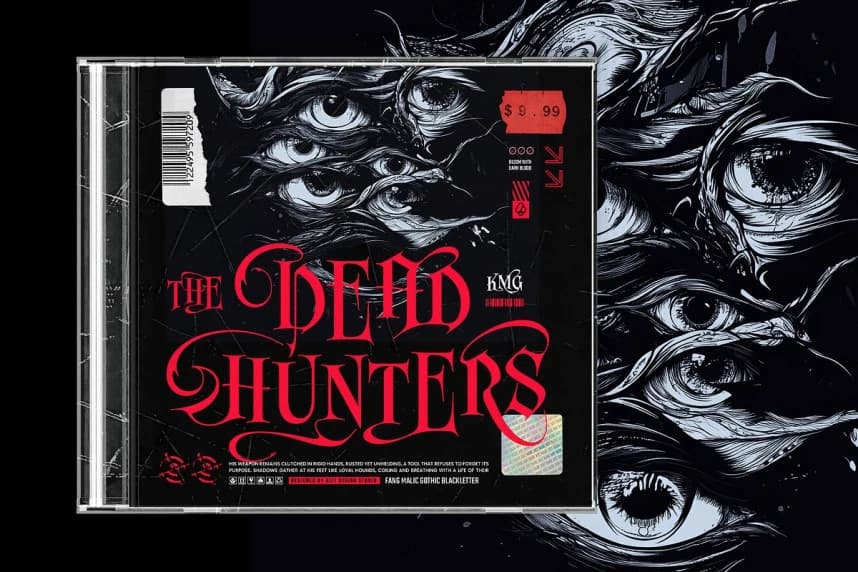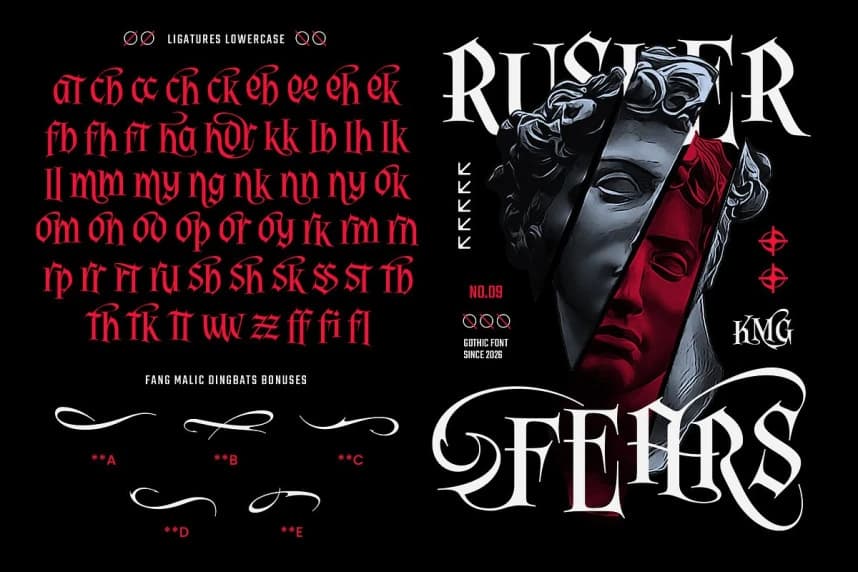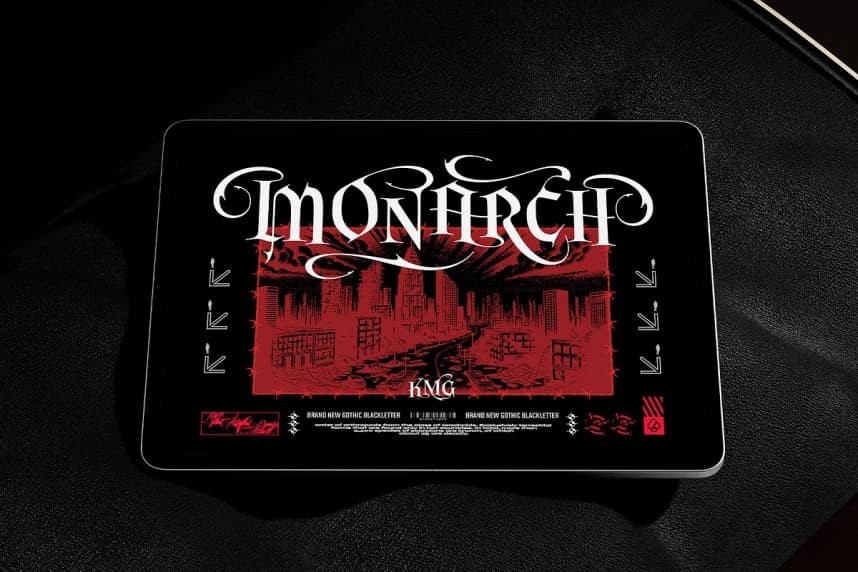
Fang Malic Font
Fang Malic Font, a premium Gothic Blackletter font that masterfully blends the raw energy of urban culture with the dark, intricate elegance of vintage typography. Born from the shadows and heavily inspired by the modern streetwear movement